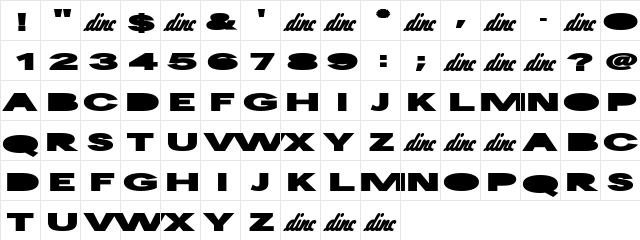
DeepDark Regular
Design Context for DeepDark Typeface
DeepDark takes a measured approach to typography — its balanced proportions and neutral character make it a reliable workhorse for both digital and print work.